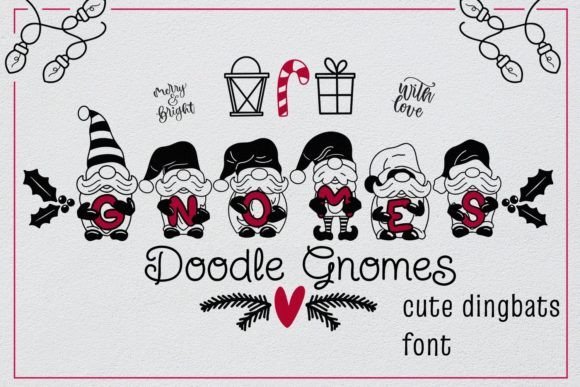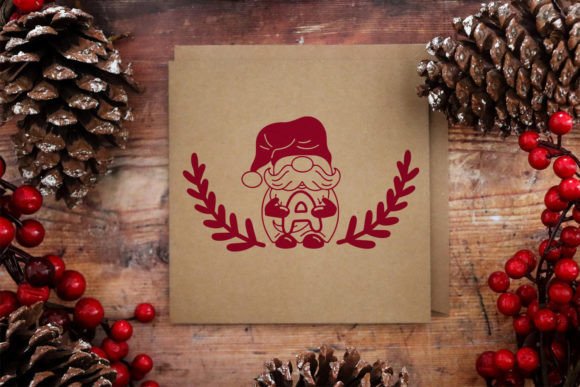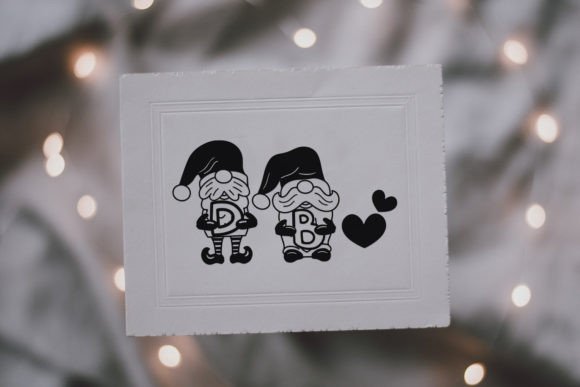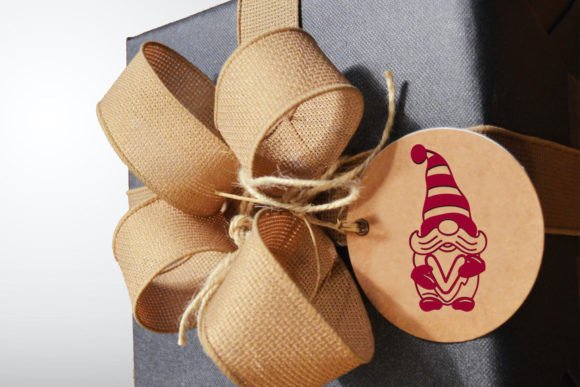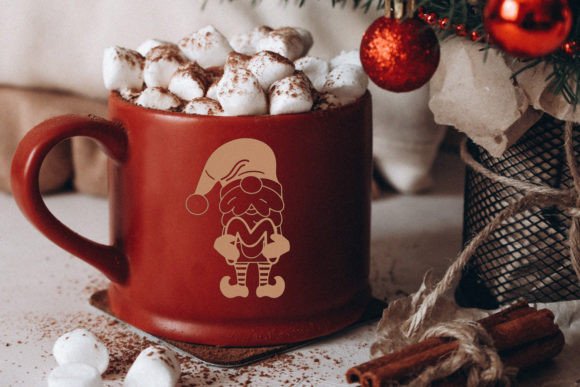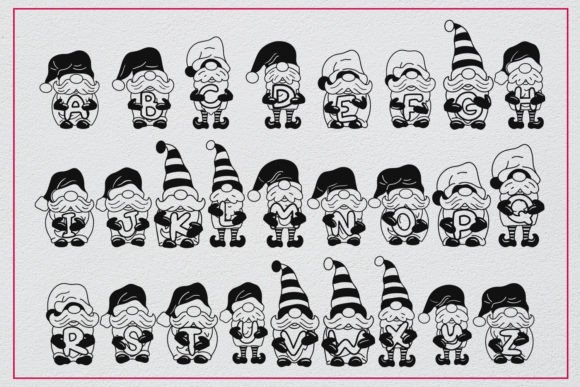
Get Ready to Deck the Halls with Doodle Gnomes Font
As a designer, have you ever found yourself brainstorming ideas for a Christmas project, only to get stuck on the perfect font? You’ve got the vision, the creativity, and the enthusiasm – but the right tool is missing. That’s where Doodle Gnomes Font comes in – a delightful dingbats font that brings festive cheer to any design.
This charming font is a must-have for any designer looking to add a touch of whimsy to their Christmas projects. With its adorable gnomes and festive illustrations, Doodle Gnomes Font is perfect for creating invitations, greeting cards, and other holiday-themed designs. Its versatility and playfulness make it a valuable asset for designers of all levels, and its ease of use means you can focus on bringing your vision to life.
- Font Family: Doodle Gnomes is a playful, hand-drawn font designed for creative and whimsical applications.
- Character Set: Includes uppercase and lowercase letters, numerals, punctuation marks, and special characters.
- Unique Characteristics: The font features a hand-drawn, doodle-like aesthetic with intricate details and textures, making it perfect for adding a touch of personality to designs.
Doodle Gnomes Font Review
I’ve had the chance to work with Doodle Gnomes Font, and here’s my honest take on it. ✨ One thing that stands out is the playful, whimsical feel of the font. It’s perfect for projects that need a touch of fun and imagination. The characters are well-designed, with a good balance of curves and lines that make it easy to read.
Another aspect that works well is the flexibility of the font. It comes in a range of weights and styles, making it easy to adapt to different design needs. From light and airy to bold and playful, Doodle Gnomes Font has got you covered. ✨
- ⚠️ Limited language support: While the font covers a good range of Latin-based languages, it may not be suitable for projects that require support for other languages.
- ⚠️ Limited OpenType features: Compared to more advanced fonts, Doodle Gnomes Font has limited OpenType features, which may limit its use in complex typography projects.
Overall, Doodle Gnomes Font is a great choice for designers looking for a playful, whimsical font. While it has some limitations, it’s a solid addition to any design toolkit. With its flexibility and well-designed characters, it’s perfect for projects that need a touch of fun and imagination. If you’re looking for a font that’s easy to use and adaptable, Doodle Gnomes Font is definitely worth considering.
Getting the Most Out of Doodle Gnomes Font
For best results, use Doodle Gnomes Font in conjunction with whimsical illustrations and playful graphics.
Experiment with different font sizes, colors, and styles to create a unique and eye-catching design.
Doodle Gnomes Font is ideal for:
- Whimsical branding and marketing materials
Alternatives to Doodle Gnomes Font
Great Vibes is a modern, handwritten font perfect for creating a playful and whimsical atmosphere. It’s ideal for use in branding, advertising, and editorial design. Great Vibes is more elegant and refined compared to Doodle Gnomes Font, which is more playful and childlike.
Pacifico is a beautiful, cursive script font that’s perfect for creating a sophisticated and elegant look. It’s ideal for use in wedding invitations, luxury branding, and high-end advertising. Pacifico is more polished and refined compared to Doodle Gnomes Font, which is more casual and playful.
Carolyna Pro is a modern, elegant font that’s perfect for creating a sophisticated and luxurious atmosphere. It’s ideal for use in high-end branding, advertising, and editorial design. Carolyna Pro is more formal and refined compared to Doodle Gnomes Font, which is more playful and casual.